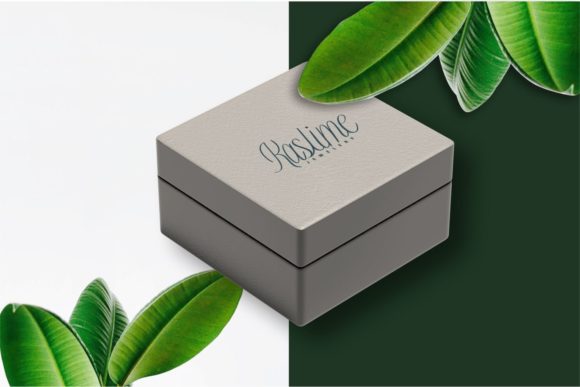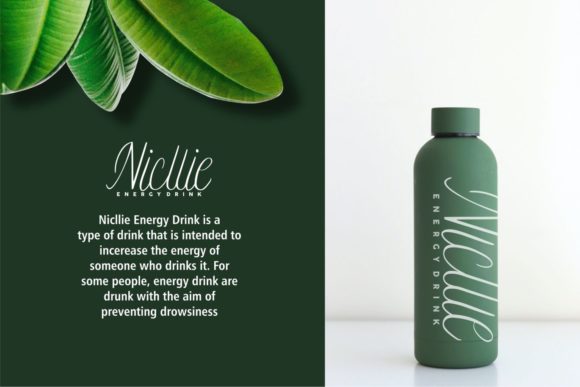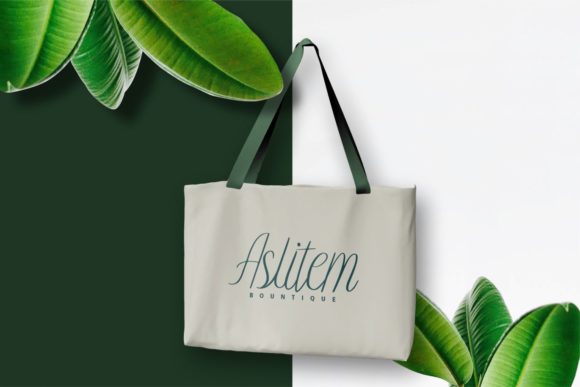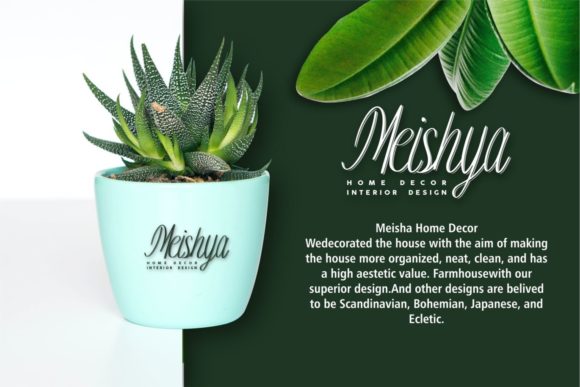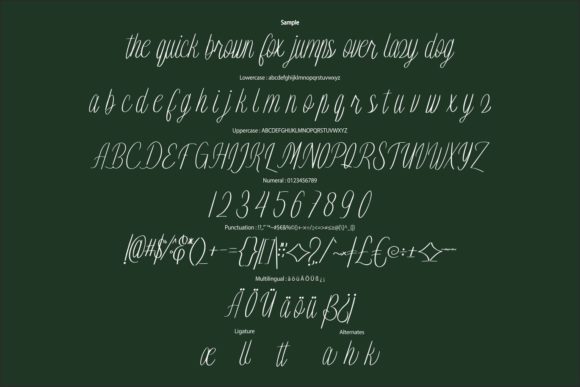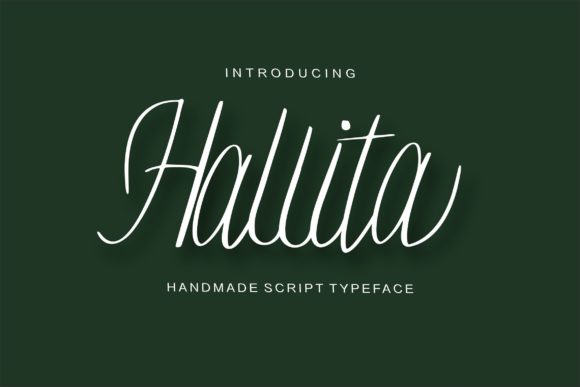
Introducing Hallita Script Font: Elevate Your Designs with Elegance and Sophistication
In the world of typography, a well-crafted script font can make all the difference in creating visually stunning designs. Hallita Script Font is a beautiful, well-balanced, and refined script font that exudes class, elegance, and modernity. With its versatility and wide range of applications, Hallita Script is an excellent addition to any designer’s or crafter’s toolkit.
What Makes Hallita Script Font Stand Out?
Hallita Script Font boasts a unique blend of traditional and modern elements, making it perfect for a variety of design projects. Its elegant and refined appearance is characterized by:
- Fluid connections: The font features smooth, flowing connections between letters, creating a sense of continuity and harmony.
- Delicate strokes: The strokes are carefully crafted to provide a sense of lightness and airiness, adding to the font’s overall elegance.
- Classic and modern elements: Hallita Script combines traditional script font elements with modern twists, making it suitable for a wide range of design applications.
Endless Design Possibilities with Hallita Script Font
Hallita Script Font’s versatility makes it an excellent choice for various design projects, including:
- Logos and branding: Create a lasting impression with a custom logo or brand identity that exudes sophistication and elegance.
- Invitations and stationery: Add a touch of refinement to your invitations, greeting cards, and stationery with Hallita Script Font.
- Wedding designs: Make your wedding designs, such as wedding invitations, programs, and place cards, truly unforgettable with this beautiful script font.
- Social media posts: Elevate your social media presence with eye-catching posts and stories that showcase your brand’s personality.
- Packaging and advertising: Use Hallita Script Font to create stunning packaging and advertising materials that capture your audience’s attention.
Why Choose Hallita Script Font?
With so many script fonts available, why choose Hallita Script Font? Here are just a few reasons:
- Unique and distinctive: Hallita Script Font offers a fresh and unique take on traditional script fonts, setting it apart from more common fonts.
- Elegant and sophisticated: The font’s refined appearance makes it perfect for designs that require a touch of luxury and sophistication.
- Easy to read: Despite its elegant appearance, Hallita Script Font remains highly legible, making it suitable for body text and headlines.
- Highly versatile: The font’s flexibility allows it to be used in a wide range of design applications, from digital to print.
Get Creative with Hallita Script Font
In conclusion, Hallita Script Font is a beautiful and versatile script font that offers a unique blend of elegance, sophistication, and modernity. Its wide range of applications and ease of use make it an excellent choice for designers and crafters looking to elevate their designs. With Hallita Script Font, you can create stunning logos, branding materials, invitations, stationery, wedding designs, social media posts, and more. So go ahead, get creative, and let Hallita Script Font help you bring your design visions to life!
| Font Name | Hallita Script Font |
| Author | FannanStudio |